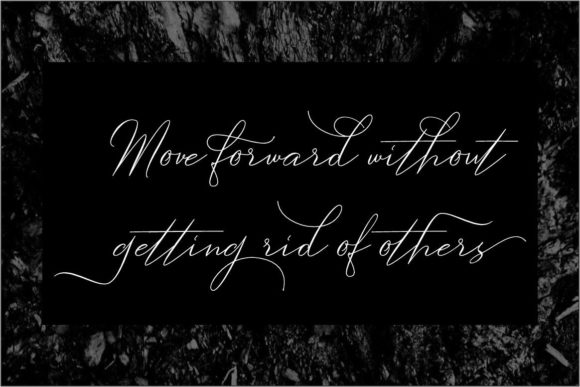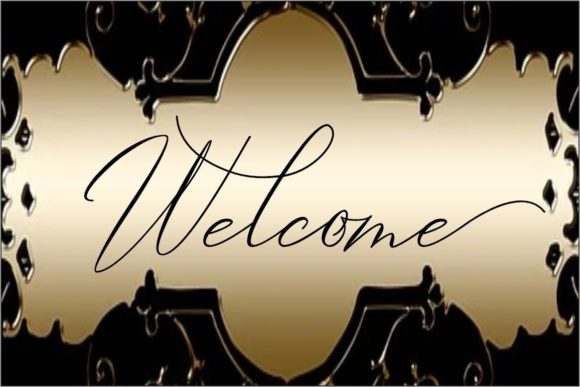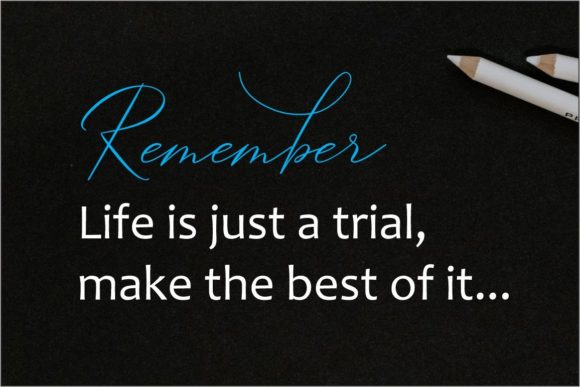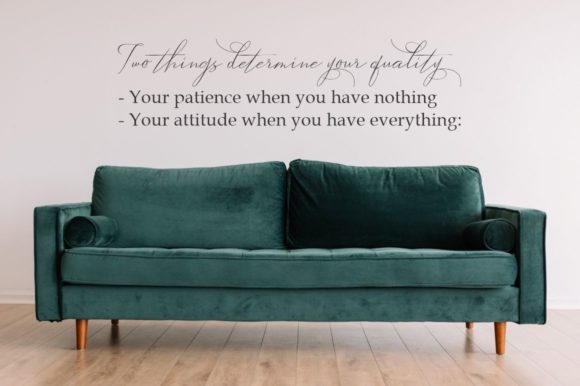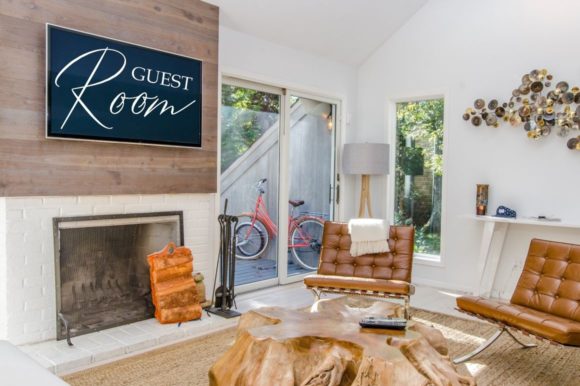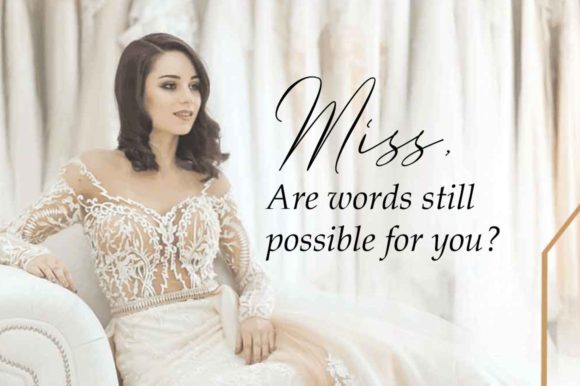
The Dalbert Font: A Romantic and Lovely Addition to Your Designs
I’ll never forget the time I was working on a wedding invitation project, and my client asked me to create a custom design that exuded romance and elegance. I spent hours scouring font libraries, but nothing seemed quite right. That’s when I stumbled upon the Dalbert font, and it instantly became the perfect fit. In this article, I’ll share my experience with this beautiful script font, its features, and how to make the most of it in your designs.
A Personal Review of Dalbert Font
As a designer, I’m always on the lookout for fonts that can add a touch of personality to my projects. Dalbert font has quickly become one of my favorites, and here’s why:
- ✨ Unique and Dainty Design: Dalbert font boasts a one-of-a-kind, dainty design that adds a romantic touch to any project.
- ✅ Ease of Use: The font is PUA encoded, making it easy to access all glyphs and swashes.
- 💕 Perfect for Love Letters and Wedding Invitations: The font’s elegant and cursive design makes it ideal for creating beautiful wedding invitations, love letters, and other romantic designs.
While Dalbert font is an excellent choice for many projects, there are a few minor quirks to be aware of:
- ⚠️ Limited Use in Non-Romantic Contexts: The font’s romantic connotation might make it less suitable for designs that require a more formal or playful tone.
- 🤔 Some Swashes May Not Work Well in All Sizes: When using swashes, it’s essential to experiment with different font sizes to ensure they work well with your design.
The Backstory of Dalbert Font
Dalbert font was designed with love and care by a talented typographer who wanted to create a font that would evoke feelings of romance and elegance. The designer’s inspiration came from classic calligraphy and handwritten scripts, with a modern twist to make it unique and versatile.
| Font Name | Dalbert Font |
| Author | Afnent Studio |
| What is the Dalbert font best used for? | Dalbert font is perfect for romantic designs, such as wedding invitations, love letters, and other elegant projects. |
| Is Dalbert font PUA encoded? | Yes, Dalbert font is PUA encoded, making it easy to access all glyphs and swashes. |